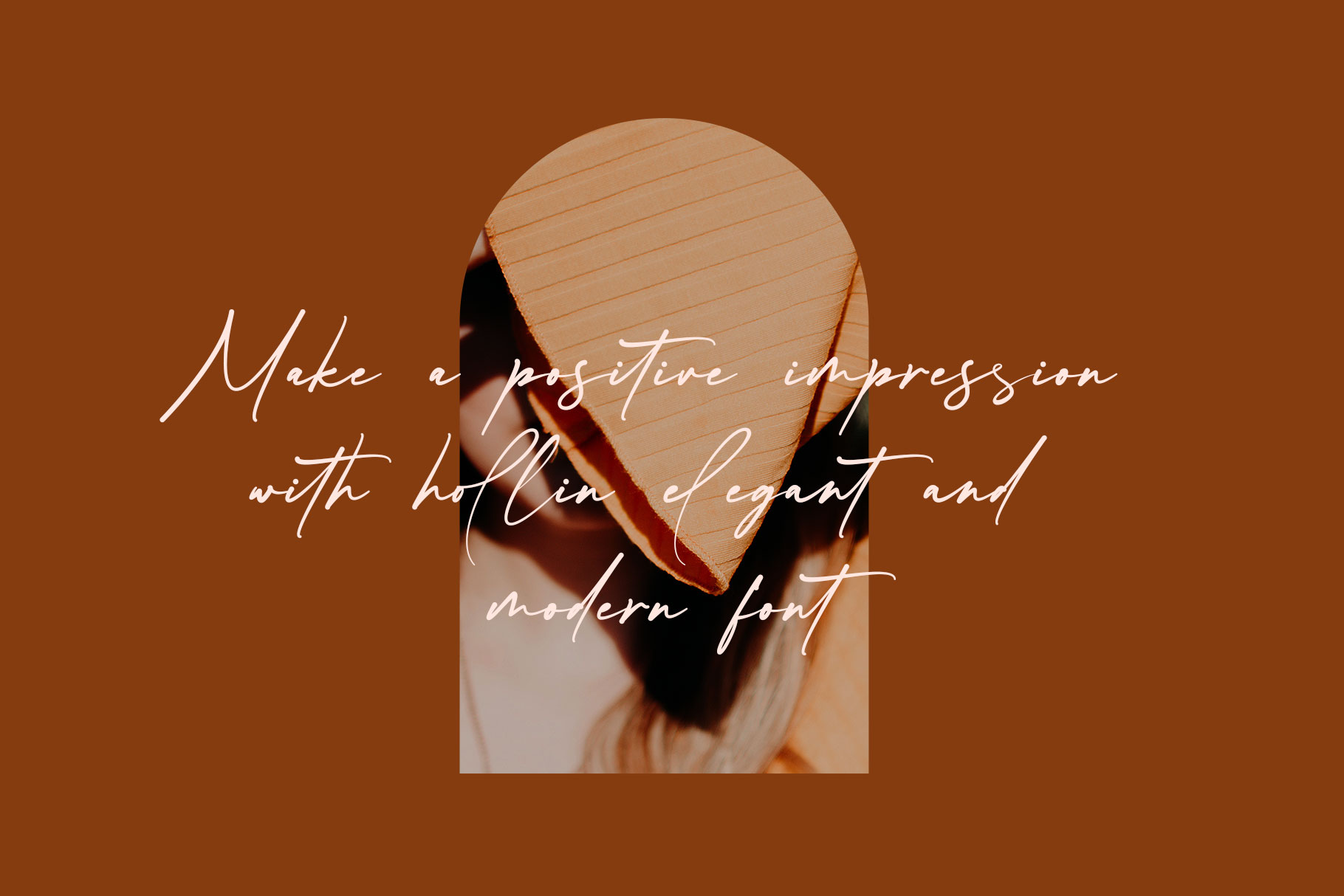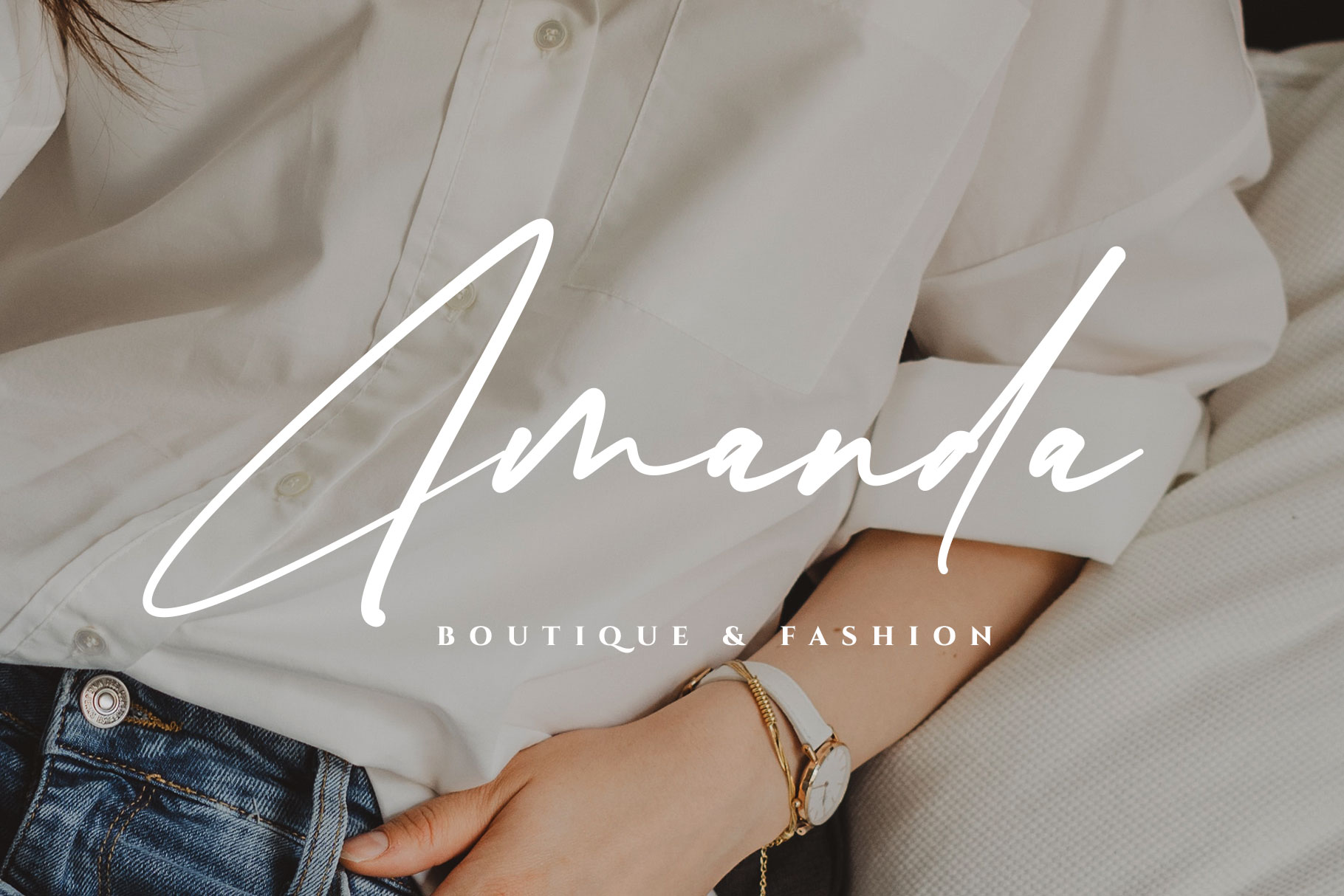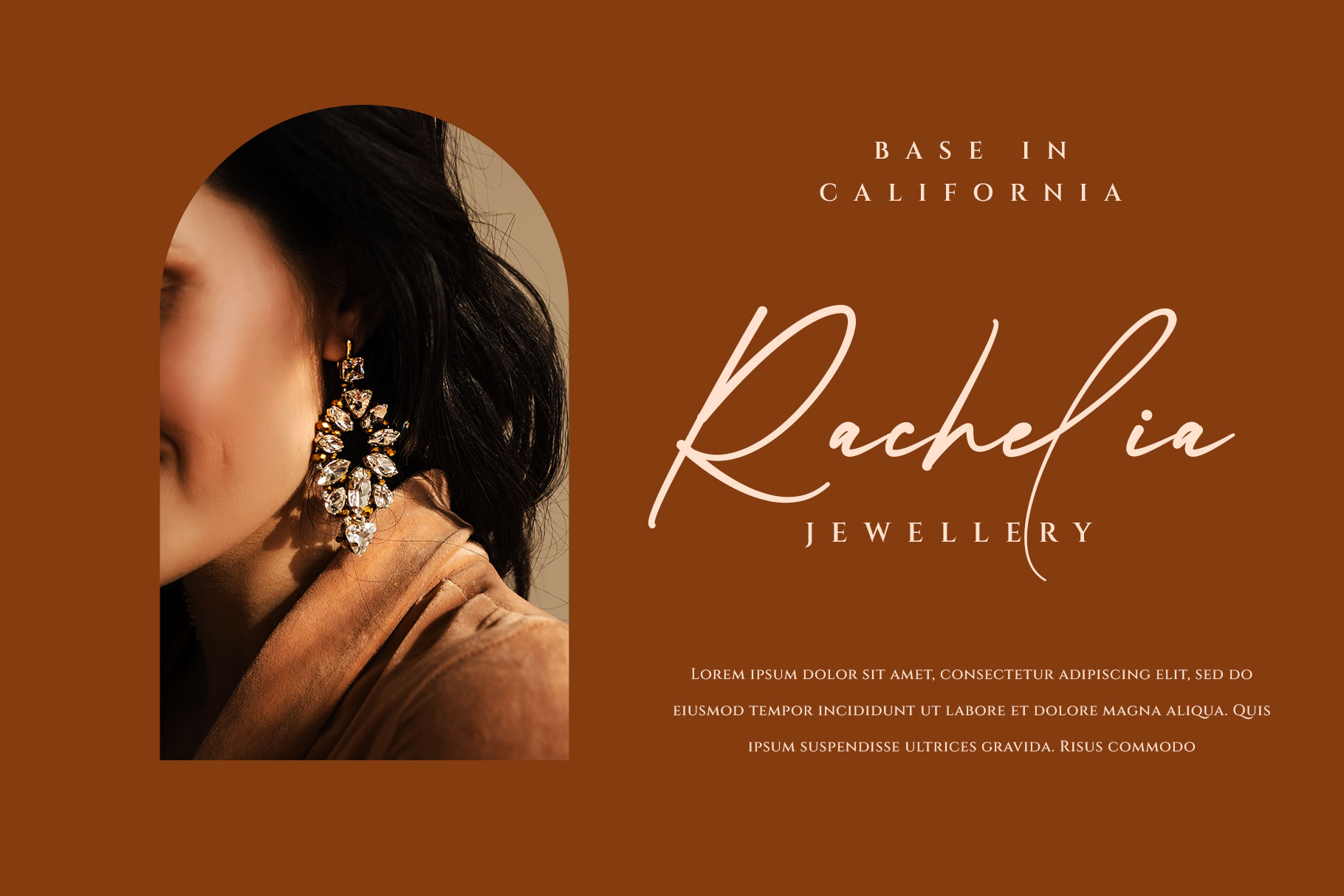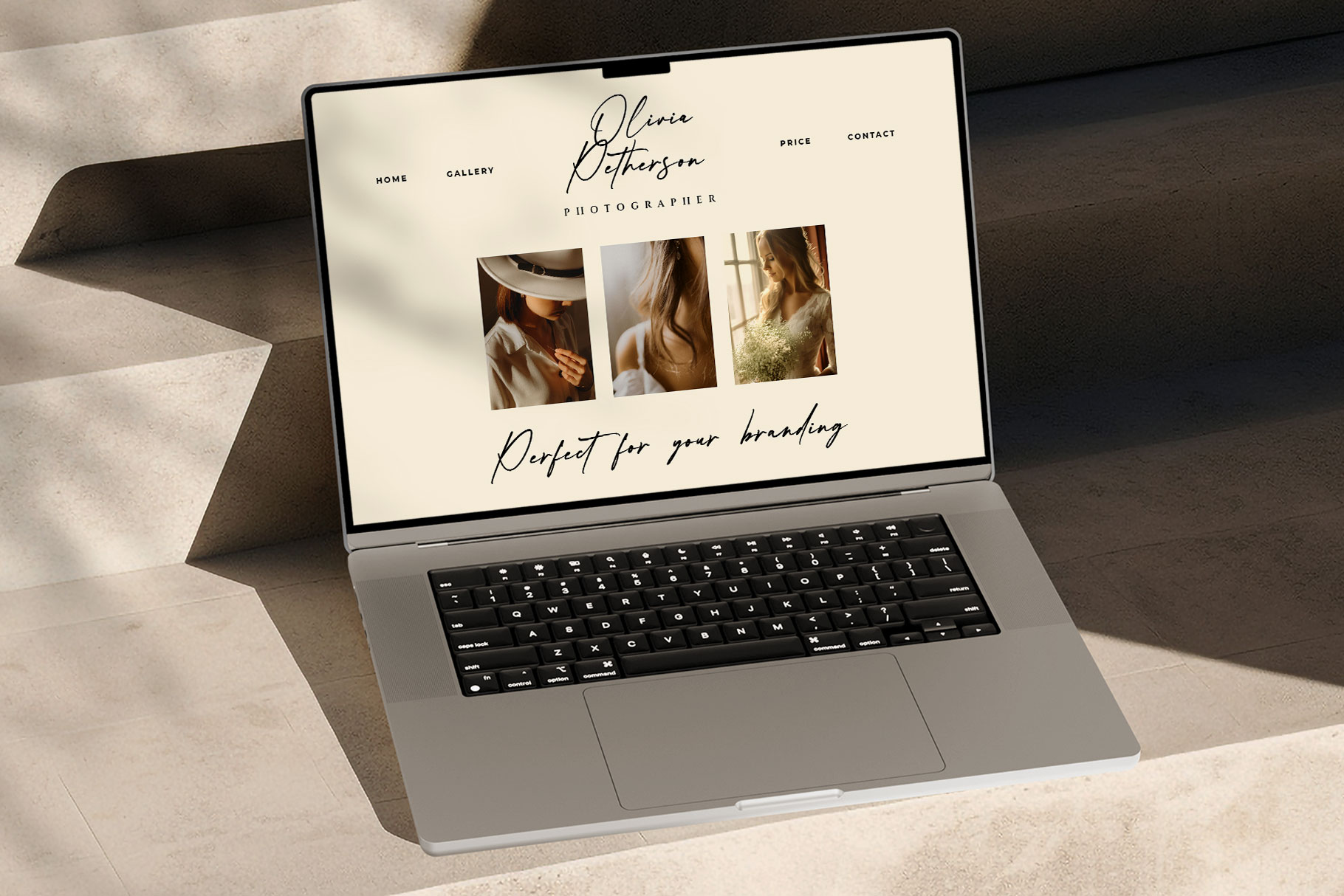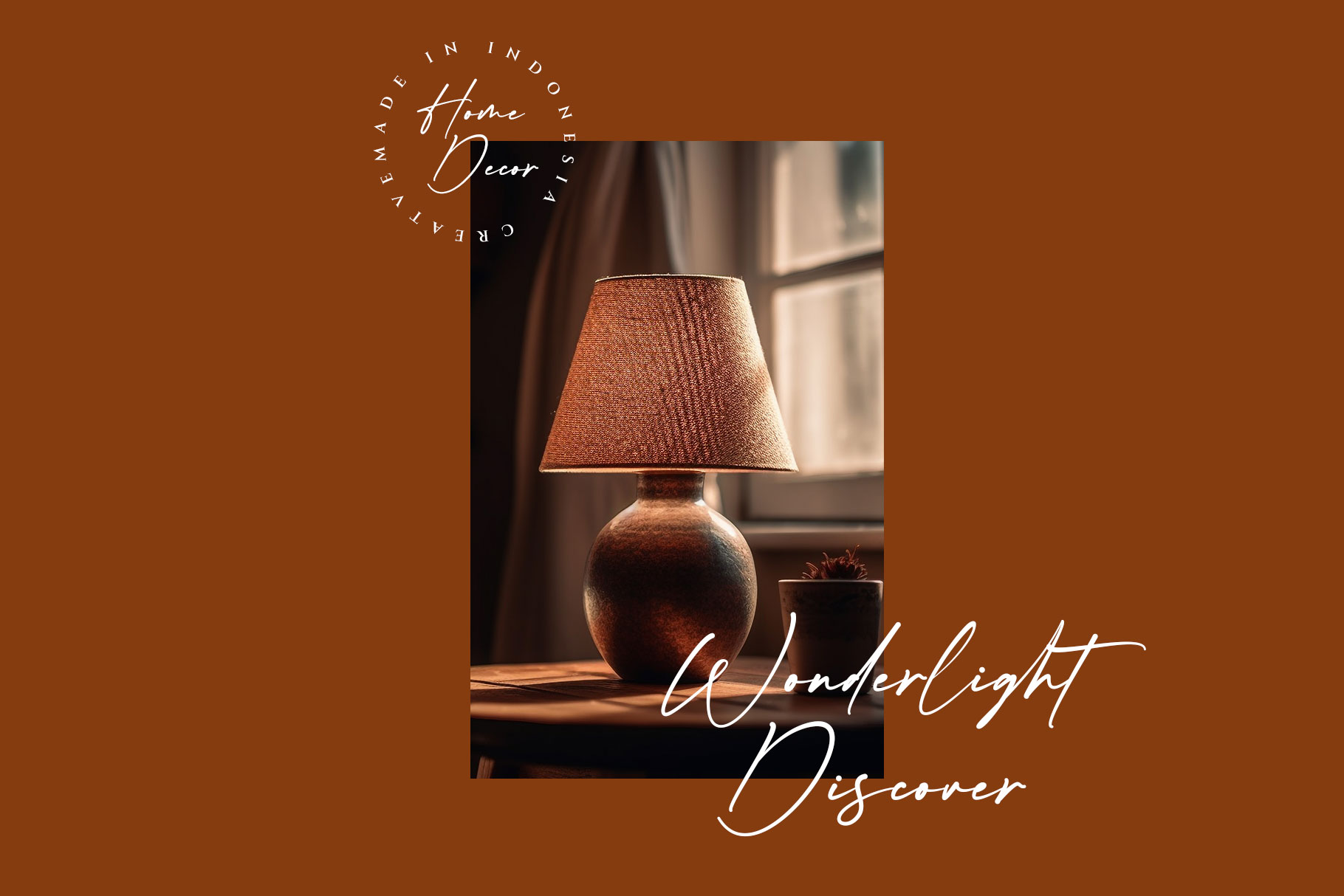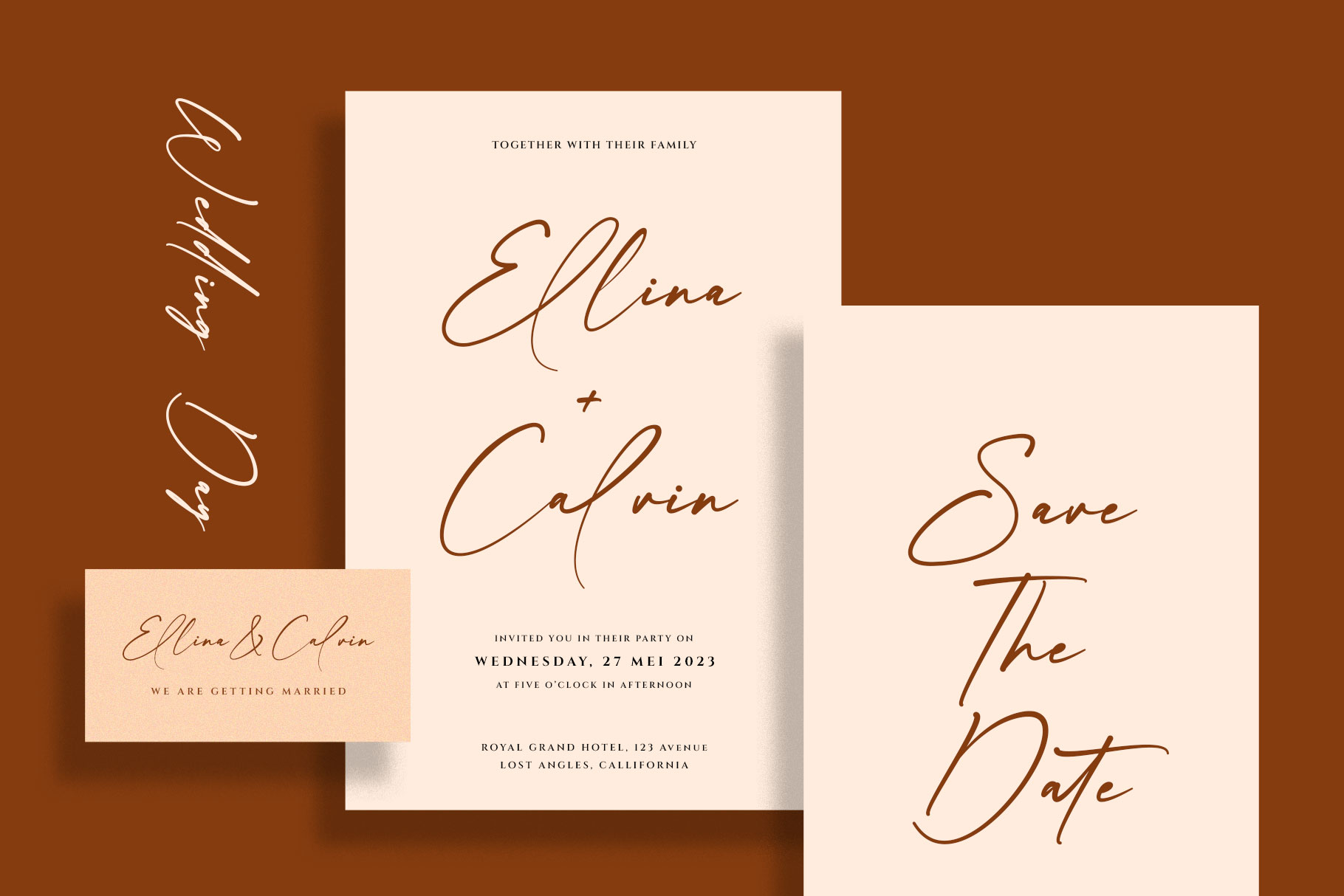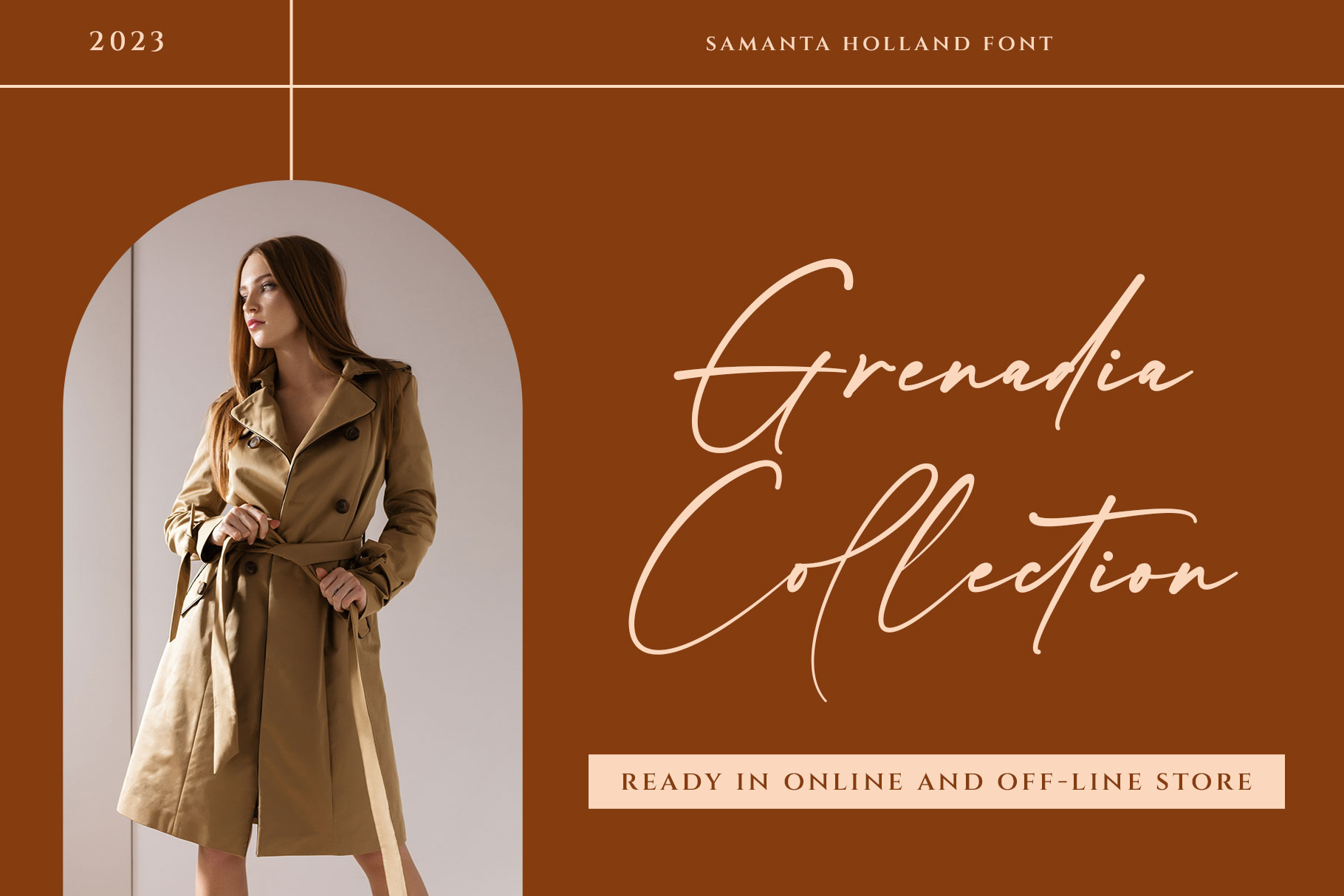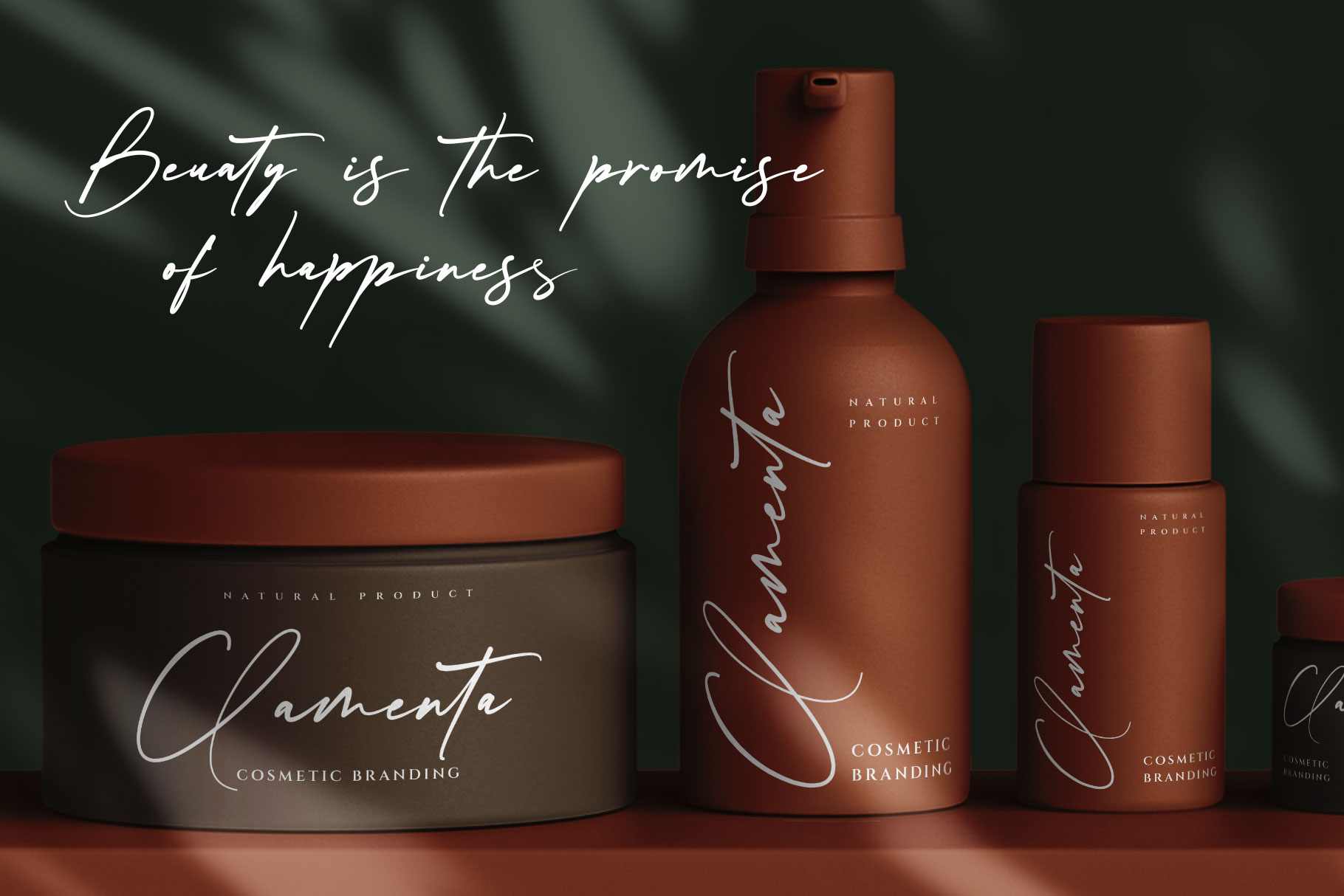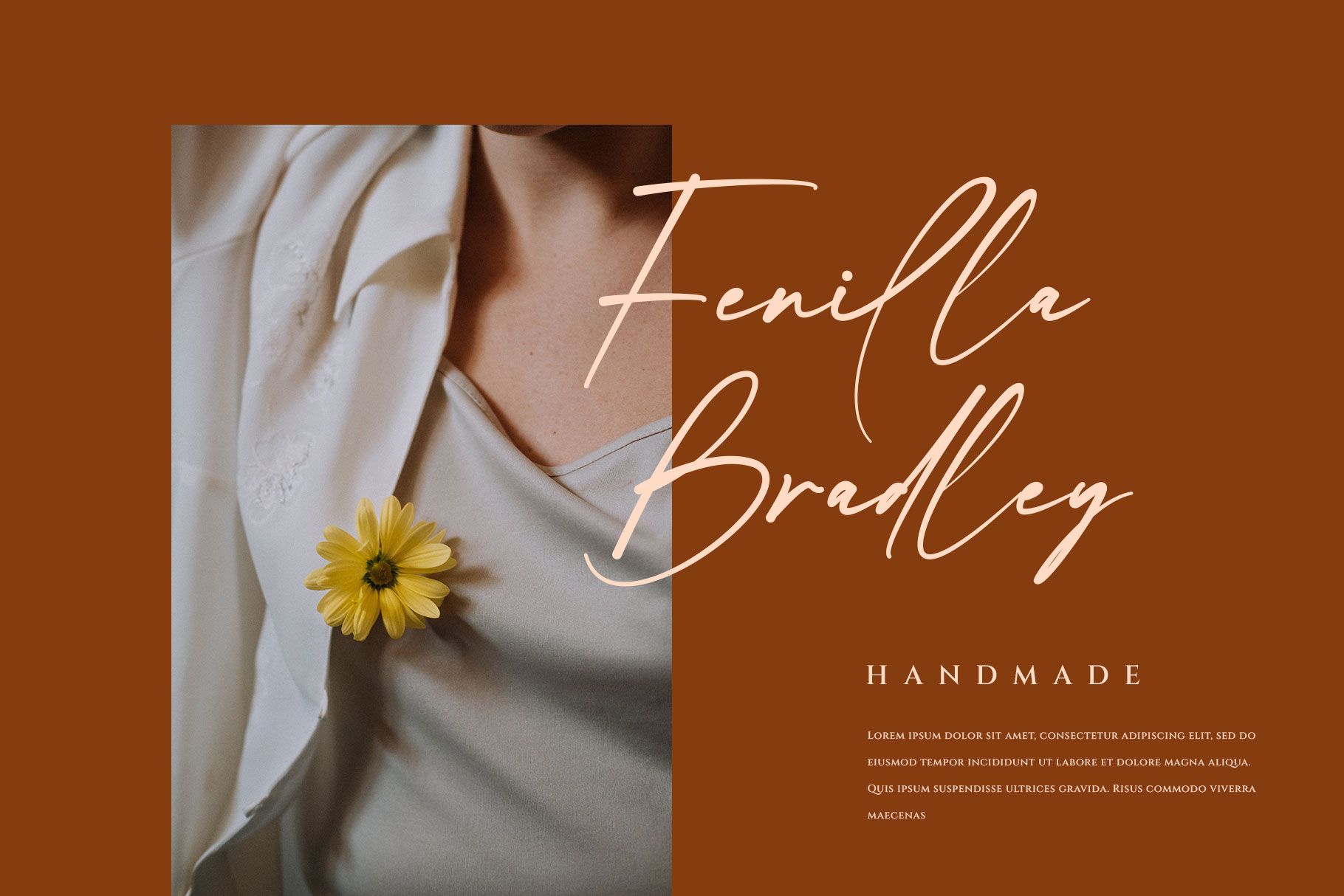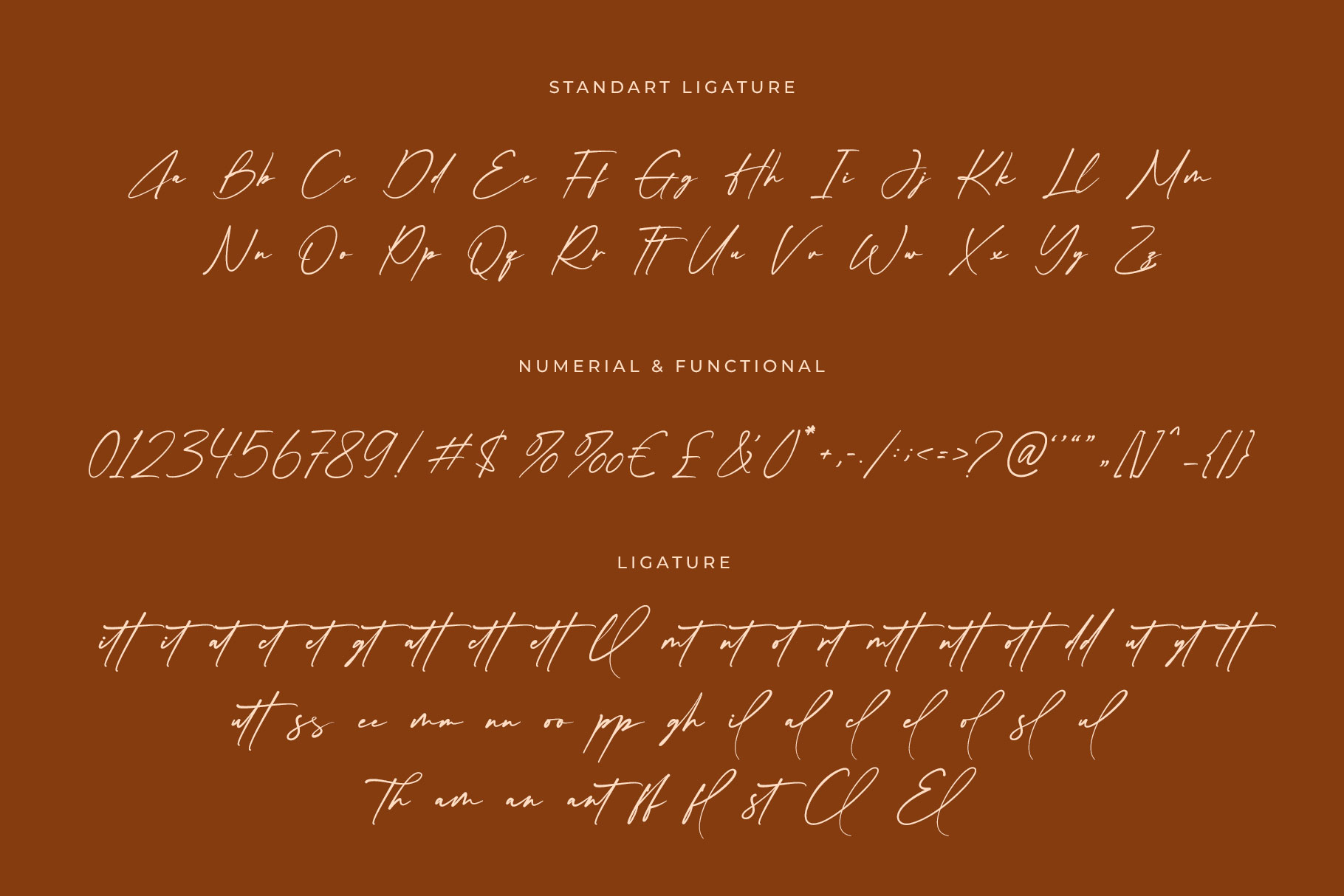
Samanta Holland Modern Signature Font
Samanta Holland is stylish handwritten which can be interpreted professional. we keep this font looks elegant, luxury, premium, modern, readable, stylish, catchy and easy to use.
Samanta Holland is a perfect choice for any creative endeavor, chic, lifestyle design such as logos, advertisements, watermark on photography, stationery, branding project, display and magazine, invitation, corporate brand, product design, label, business project and many other project need handwritten taste.